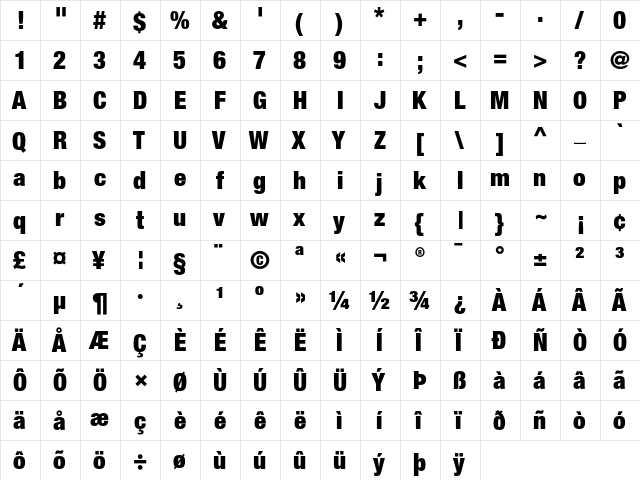
BMW Helvetica 97 Black Condensed
Design Context for BMW Helvetica Typeface
BMW Helvetica takes a measured approach to typography — its balanced proportions and neutral character make it a reliable workhorse for both digital and print work. The condensed width makes it efficient for tight spaces without sacrificing legibility.